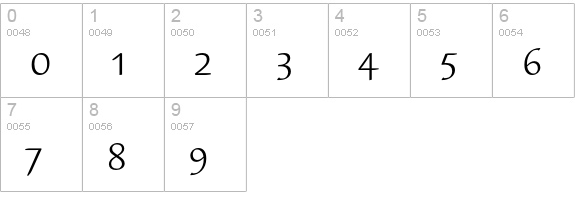
SyndorEF-BookSC is a beautifully crafted font that strikes the perfect balance between elegance and readability. With its sleek and modern design, this font is ideal for various design projects, from branding to editorial design. Its simple yet sophisticated appearance makes it versatile and suitable for a wide range of applications. The best part about SyndorEF-BookSC is that it is available for free download at FontsMarket.com. This means that you can easily access and use this stunning font in your projects without any cost. Whether you are a professional designer or a hobbyist, SyndorEF-BookSC offers a high-quality typographic solution that will elevate your designs to the next level. Don't miss out on the opportunity to enhance your projects with the exquisite SyndorEF-BookSC font. Download it for free today and see how it can make a difference in your creative work!